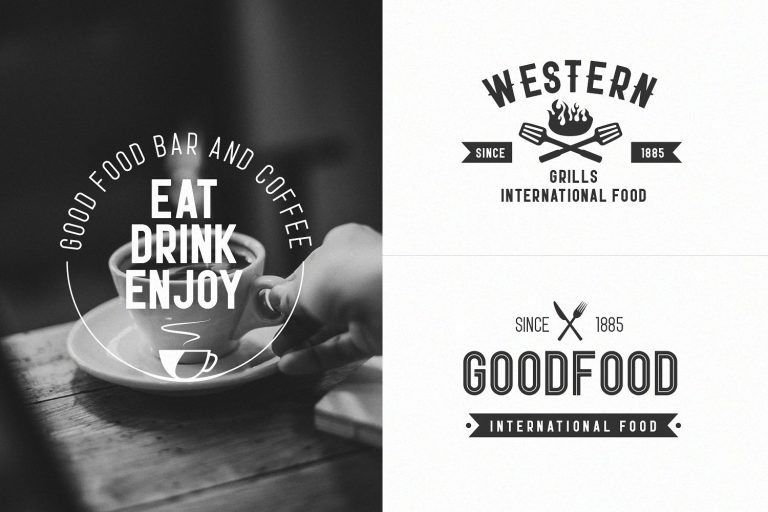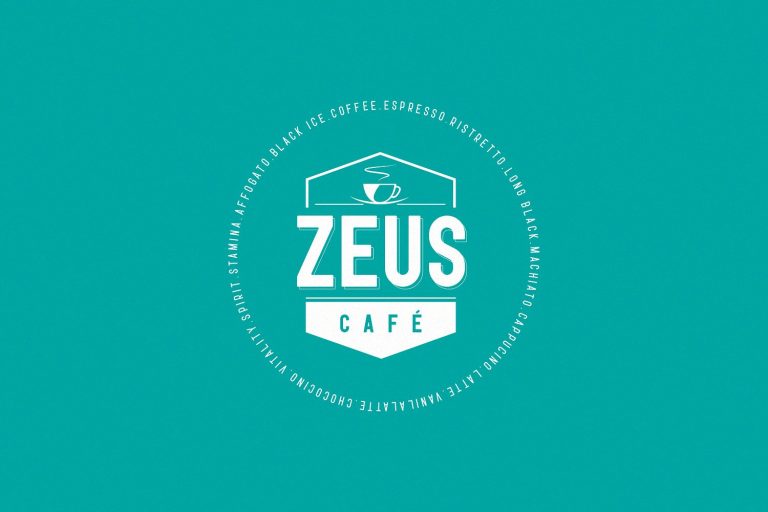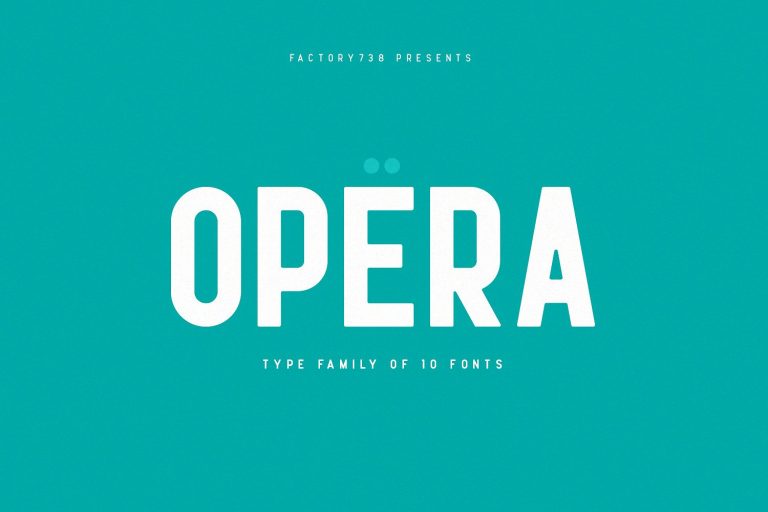
Opera Font Family
A type family of 10 fonts. This is a unique typeface for branding, logotypes, headlines, big text & display usage. Introducing Opera Typeface. Opera is a bold sans-serif font family. The combination of simple and geometric elements renders a bold design. Opera family includes 10 font styles. It can be used to create almost all types of design projects like print materials and web design. Just use your imagination and your project will become more alive and vivid than ever with one of the Opera fonts.